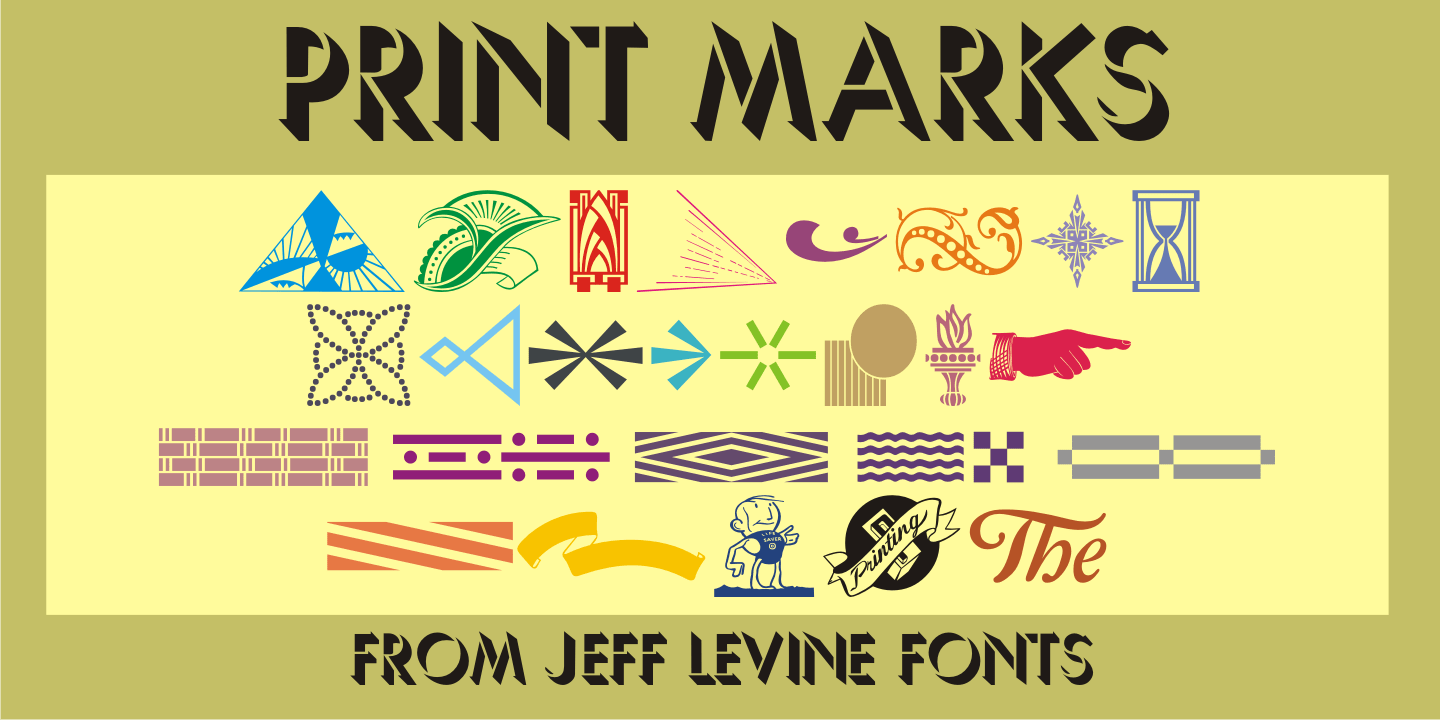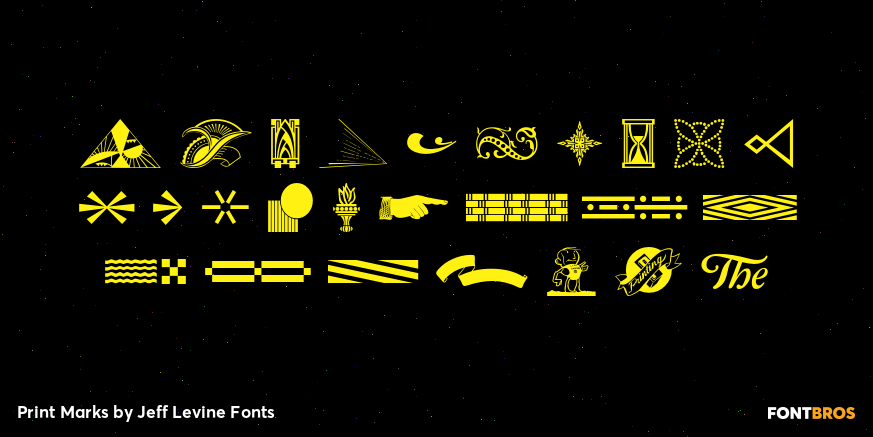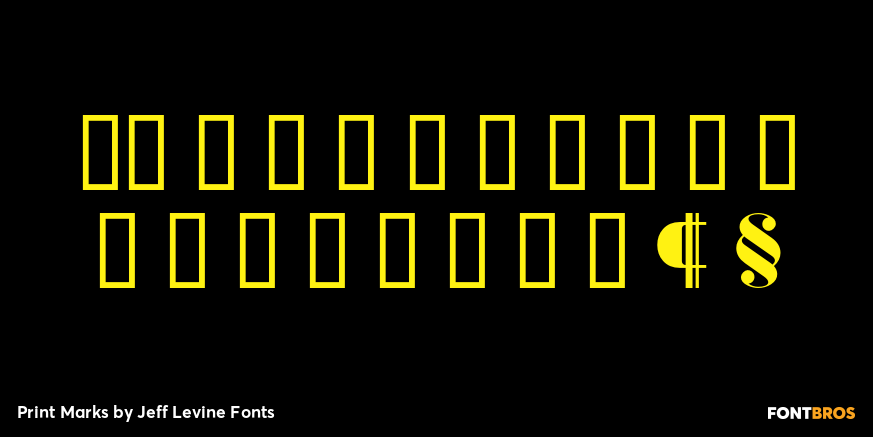
Print Marks
Print Marks JNL assembles more old print shop cuts into a varied assortment of embellishments, border elements, designs and printer's marks. Newly re-drawn from vintage source material, they will brighten text with their nostalgic and charming look.